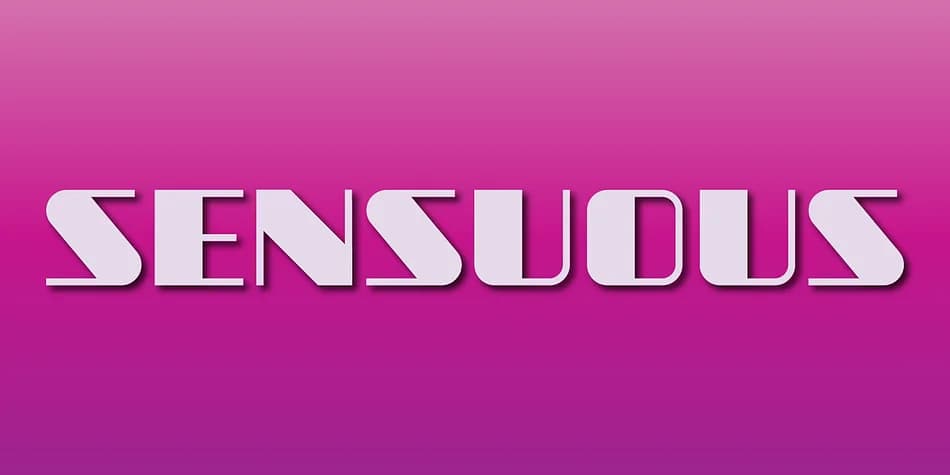
SENSUOUS by Gerald Gallo Fonts is a bold sans serif built on extreme contrast between thick and thin strokes that create genuine visual impact. The weight variation gives it serious punch, ideal when typography needs to command immediate attention. Magazine covers across fashion publications, luxury brand identities, high-end product packaging, and upscale event invitations all benefit from this theatrical stroke play. Precision and intention show in every letterform, with no softness diluting the visual power.
Wine labels, boutique cosmetics boxes, and premium stationery gain instant sophistication when set in this typeface. Even at smaller sizes, the contrast remains readable because each character is engineered for clarity and visual strength. Gallery posters and luxury real estate listings feel equally comfortable with this kind of deliberate boldness. Editorial spreads in design-focused magazines, fashion lookbooks, and luxury brand websites all showcase this font's ability to anchor high-end layouts. Brands that understand typography's power find this font carries the design weight without requiring additional visual noise.
SENSUOUS Font is a decorative font that shines as a display or heading face. Pair it with a clean sans-serif or serif font for body text β the contrast creates a clear hierarchy while the two styles stay balanced and easy to read.
SENSUOUS Font